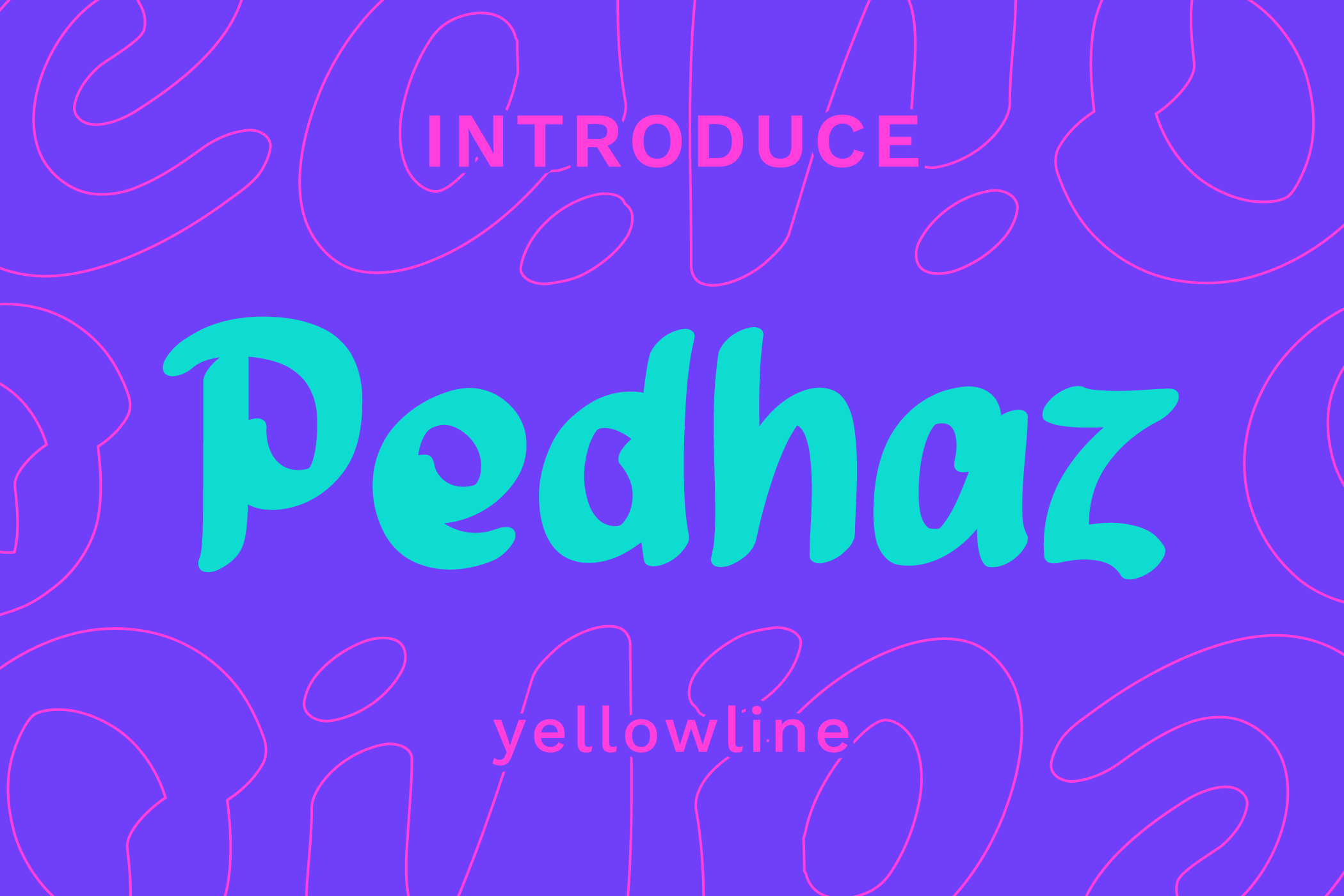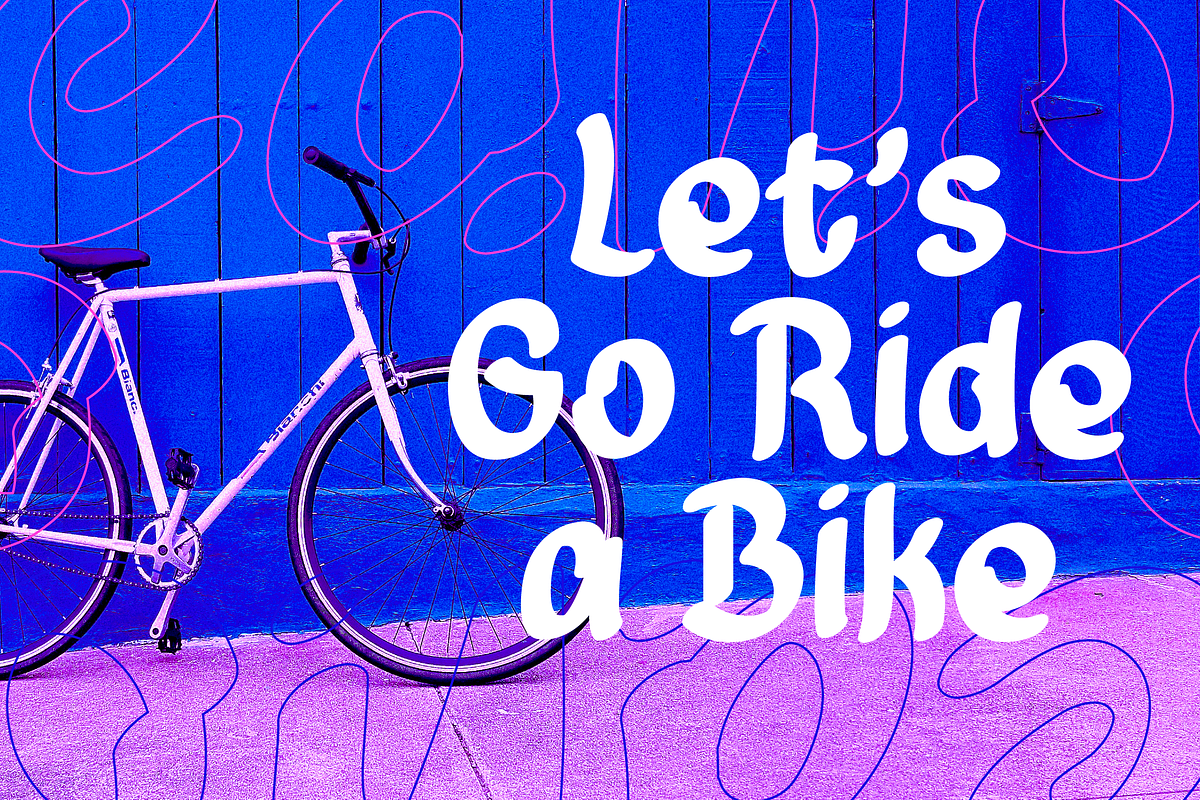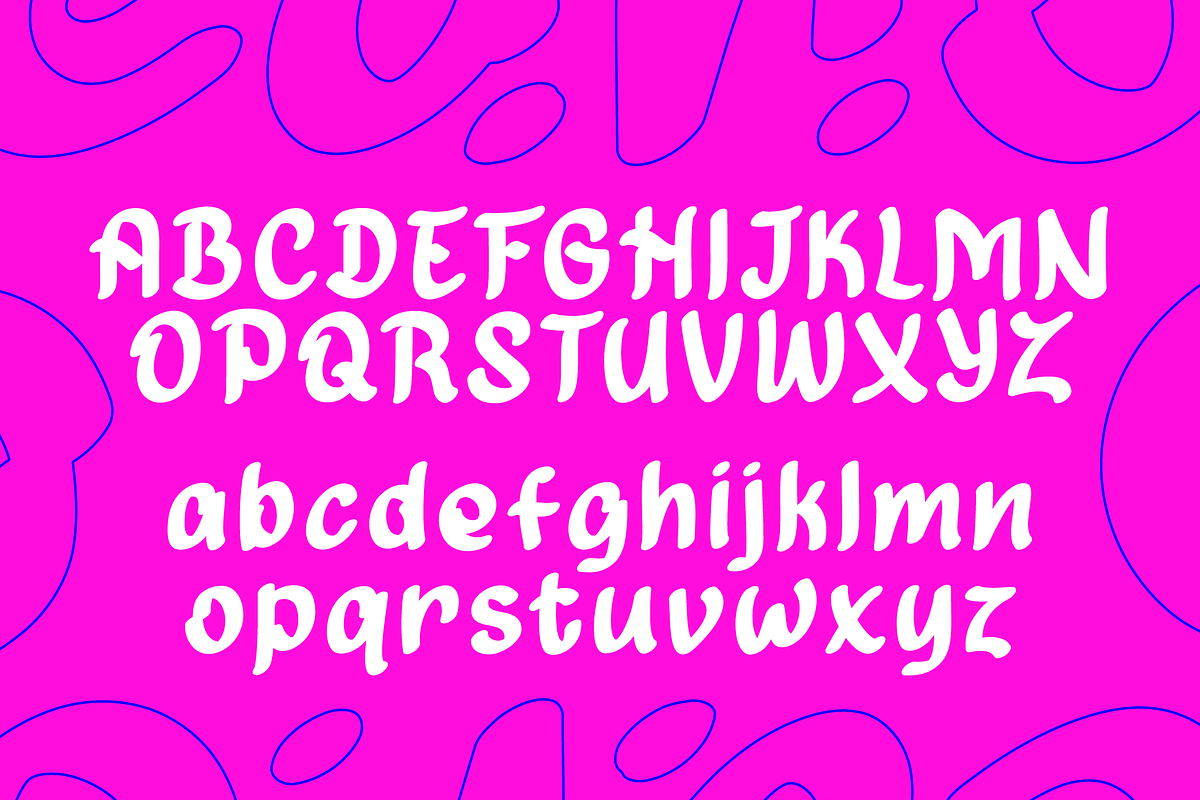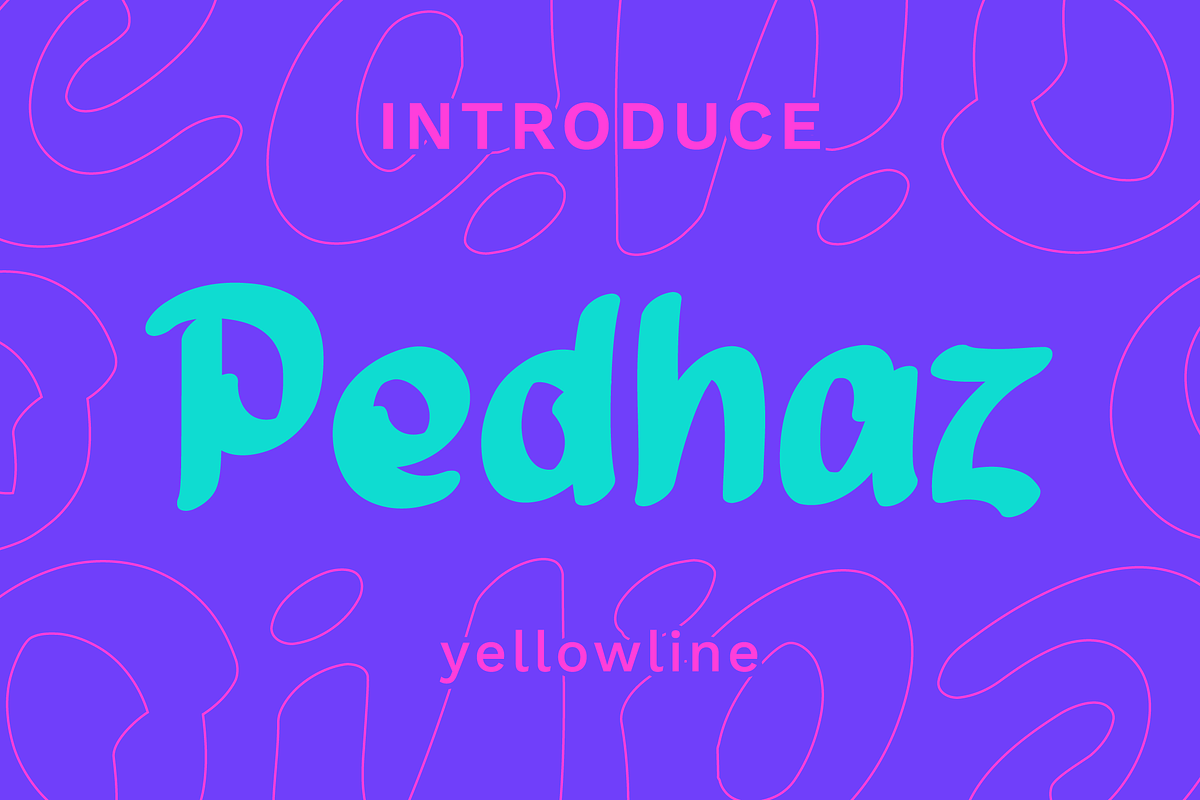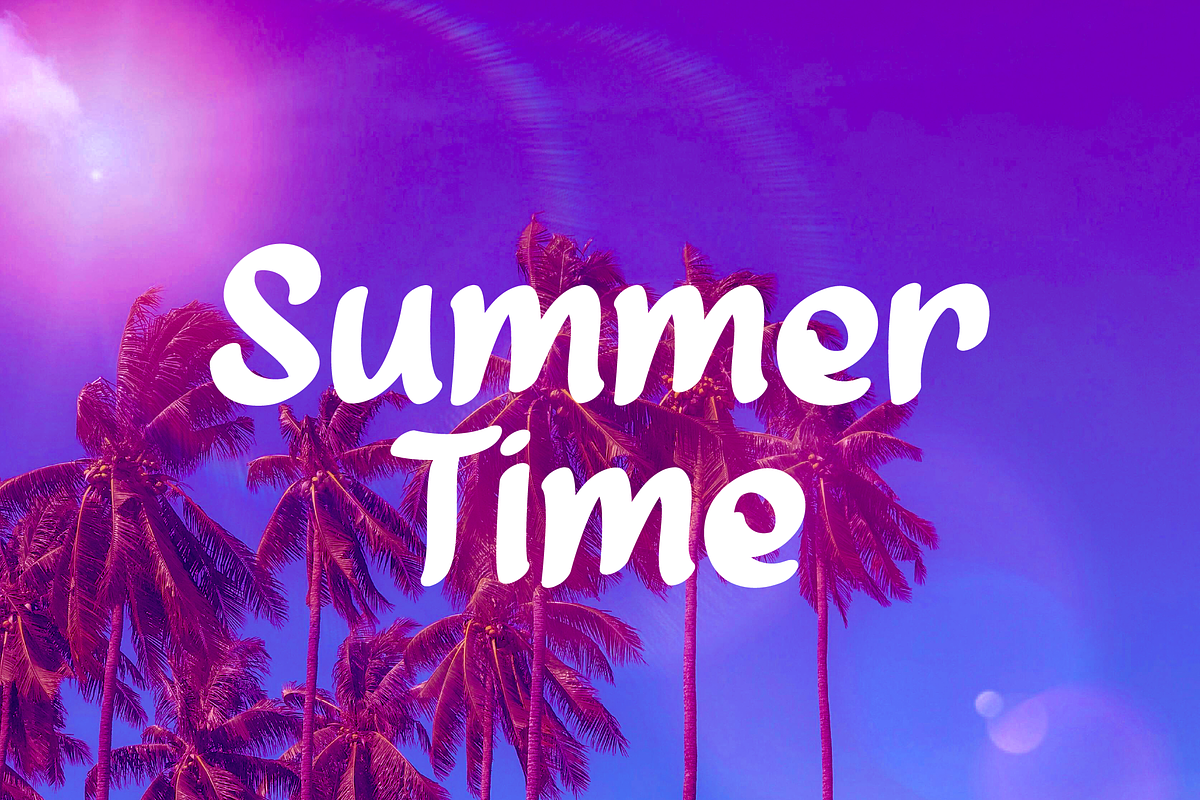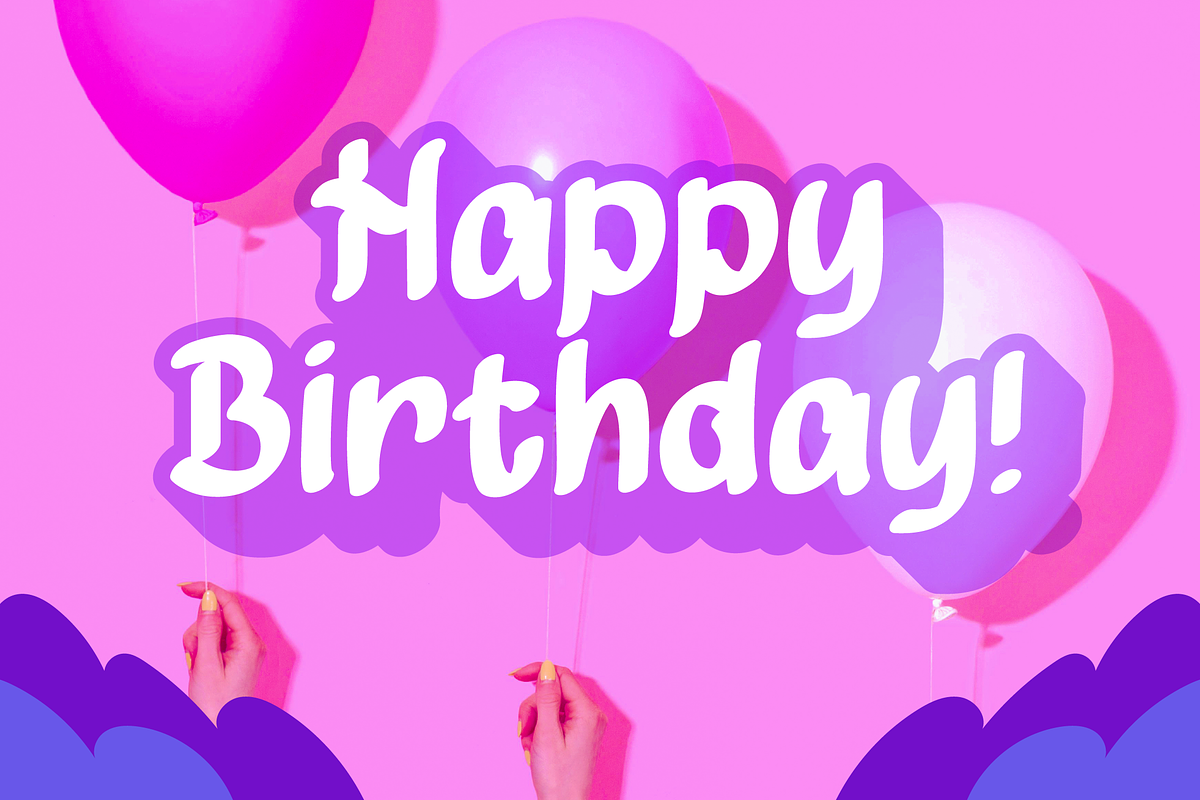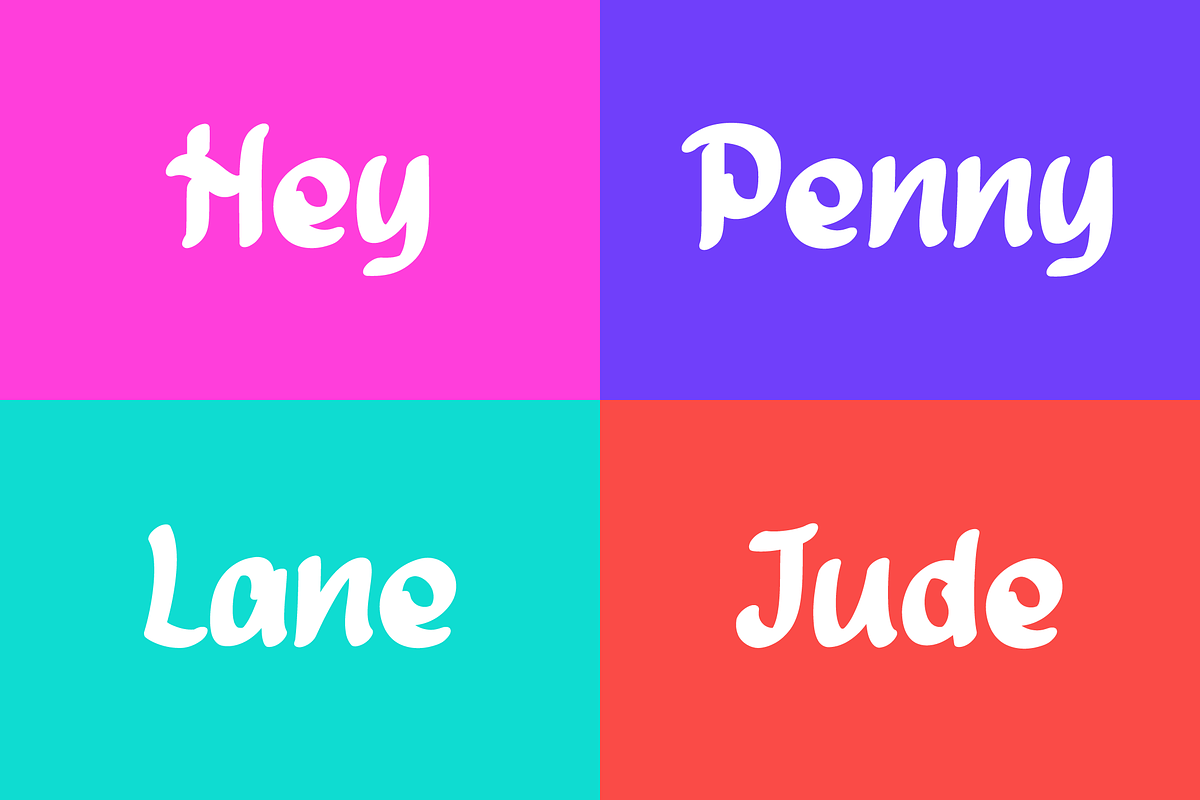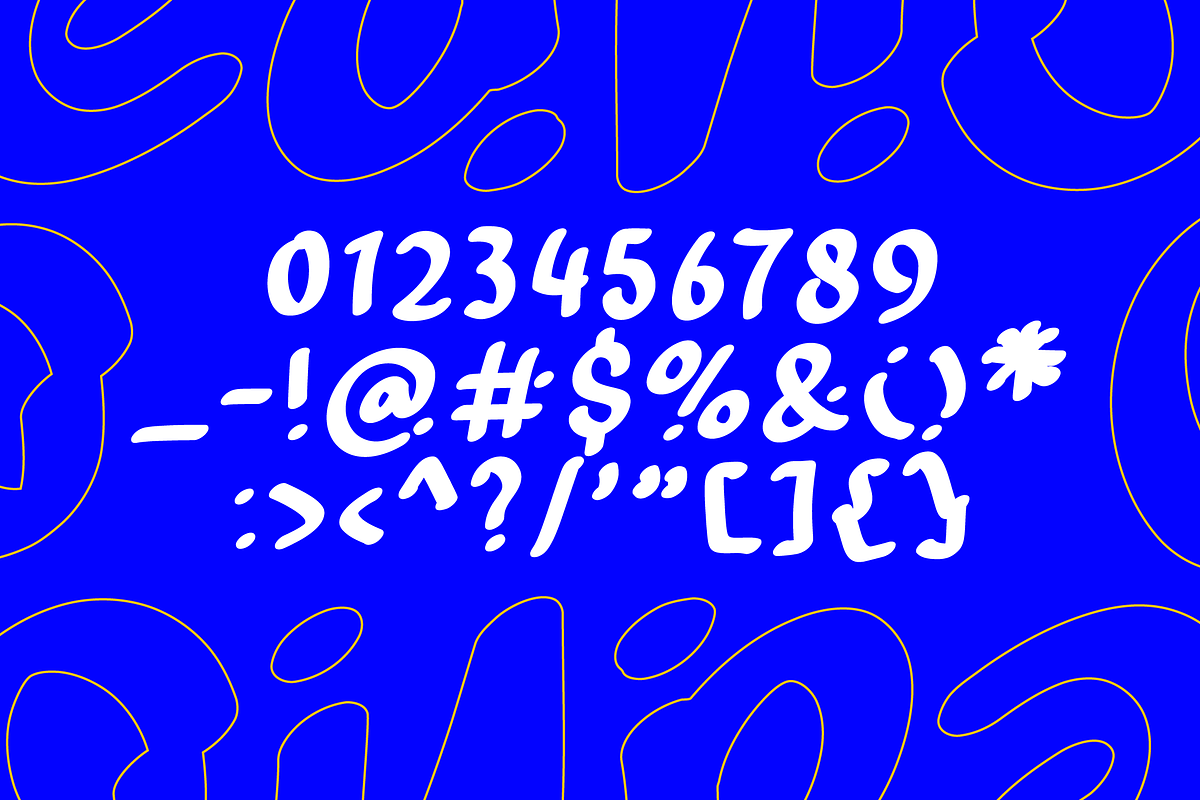
Pedhaz - Display Font
Display Handdrawn font named Pedhaz. This font has been created to make your design more awesome Also you can use Pedhaz for logo type, packaging, product design, tshirt design and more.
Pedhaz features :
- Number & Punctuation